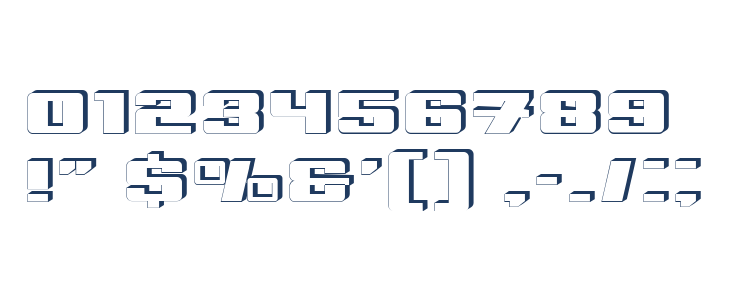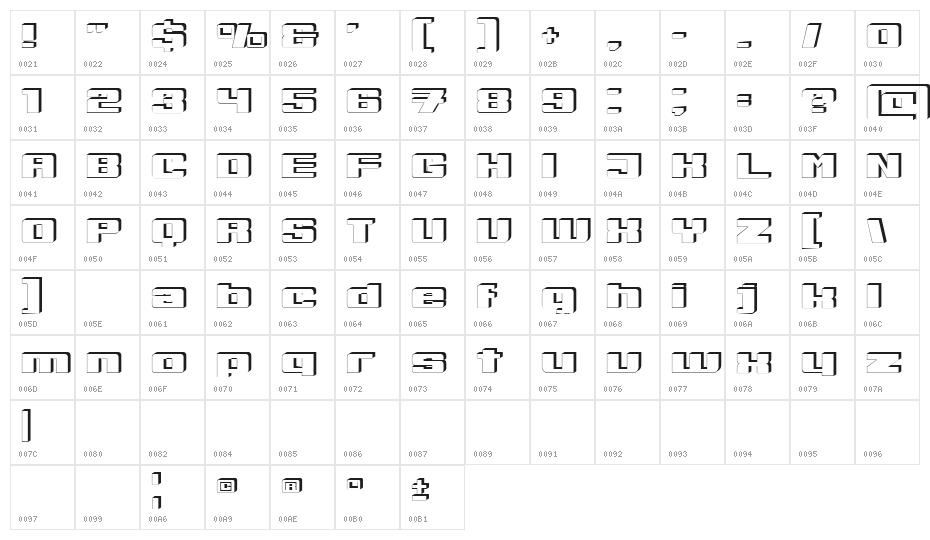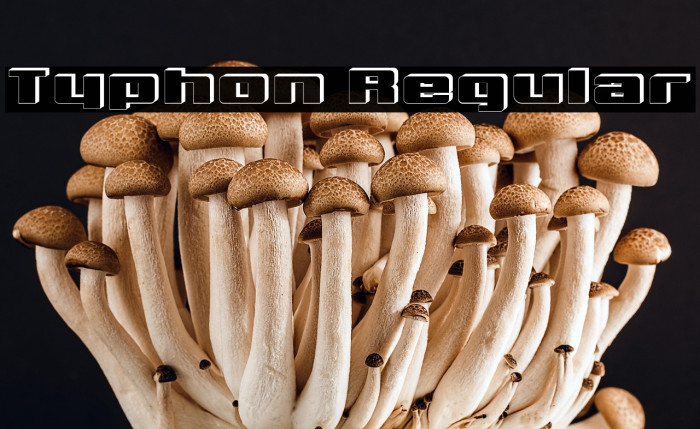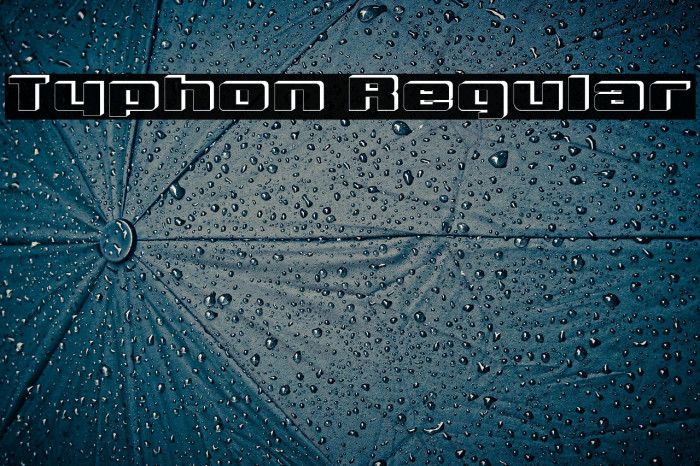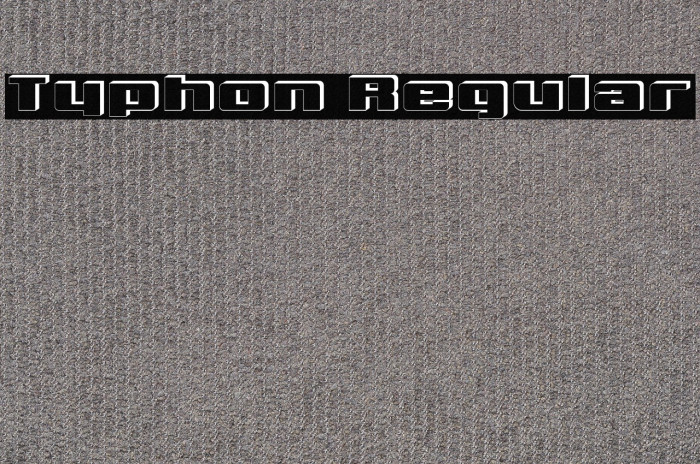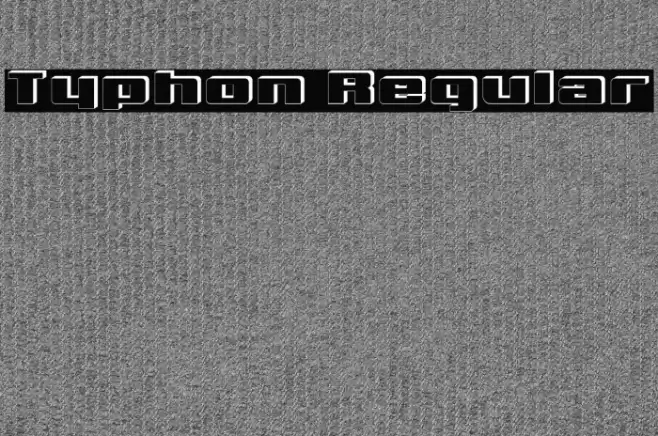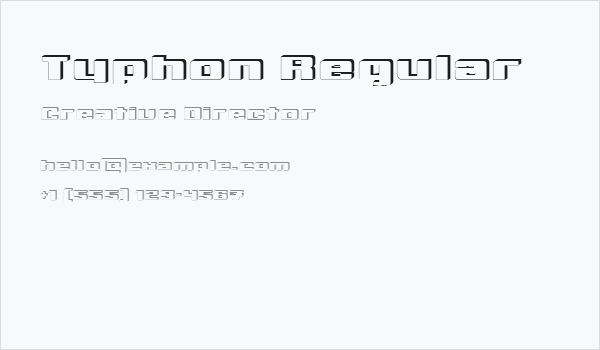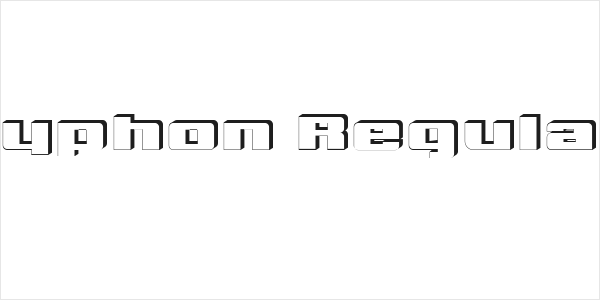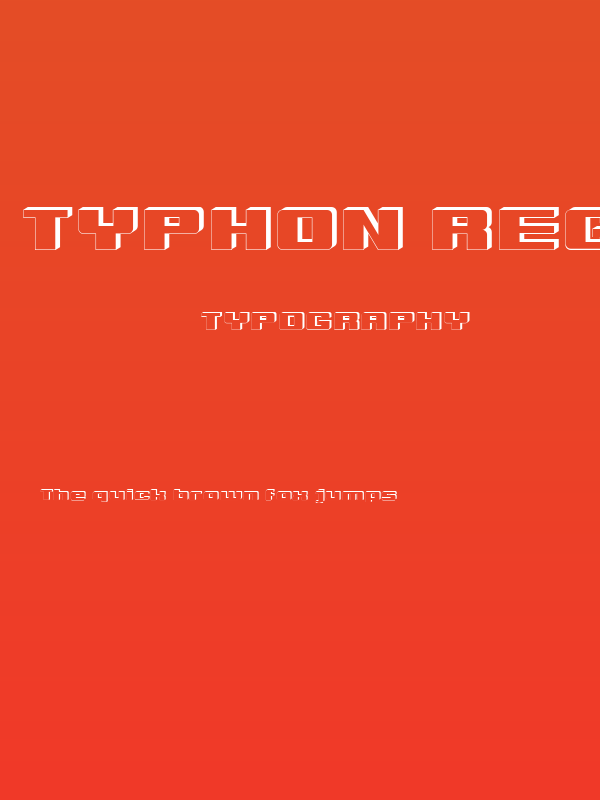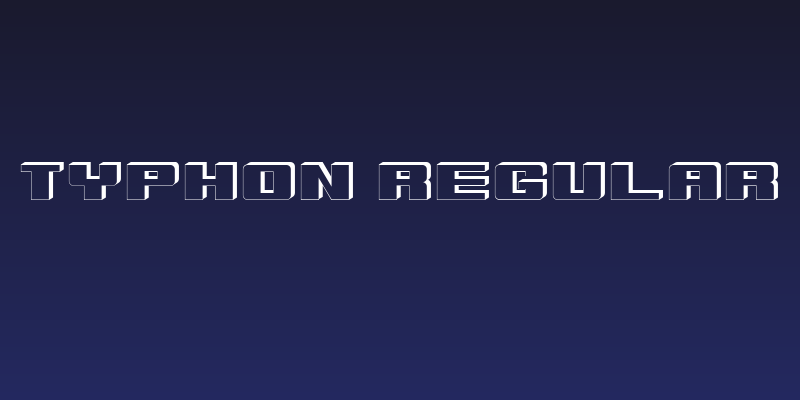
Typhon Regular Font
Typhon Regular Description
This font features a bold, geometric design with a distinct outline style that gives it a modern and futuristic appearance. The characters are blocky and angular, with a strong presence that makes them stand out. The uppercase and lowercase letters maintain a consistent width, contributing to a uniform look. The numerals and special characters follow the same design principles, ensuring cohesion across all elements. The font's unique outline effect adds depth and dimension, making it suitable for eye-catching designs.